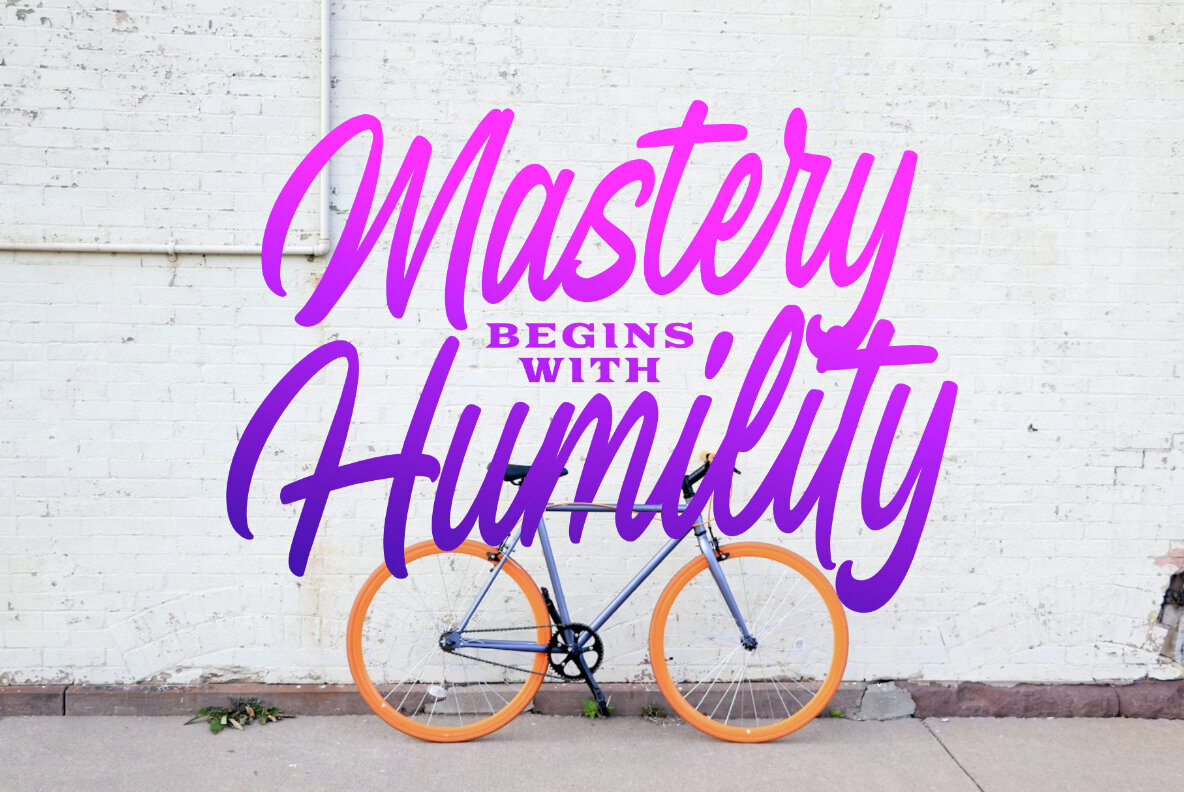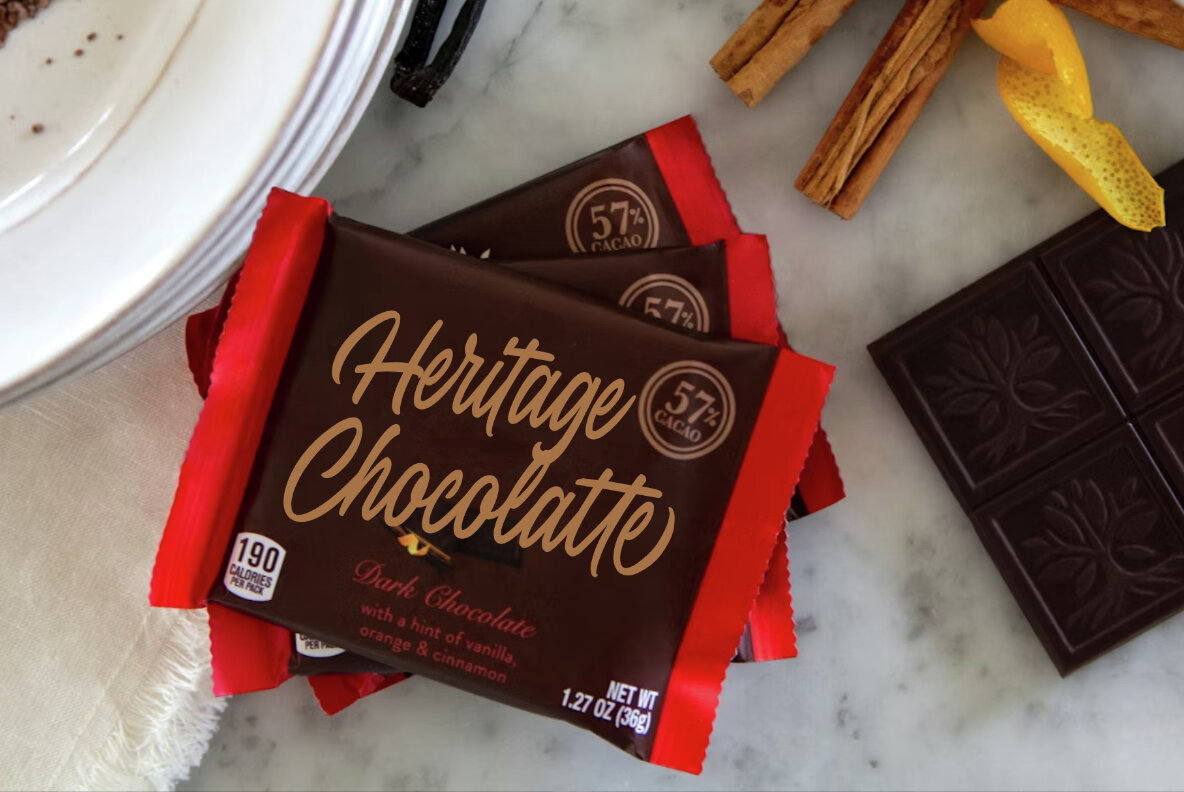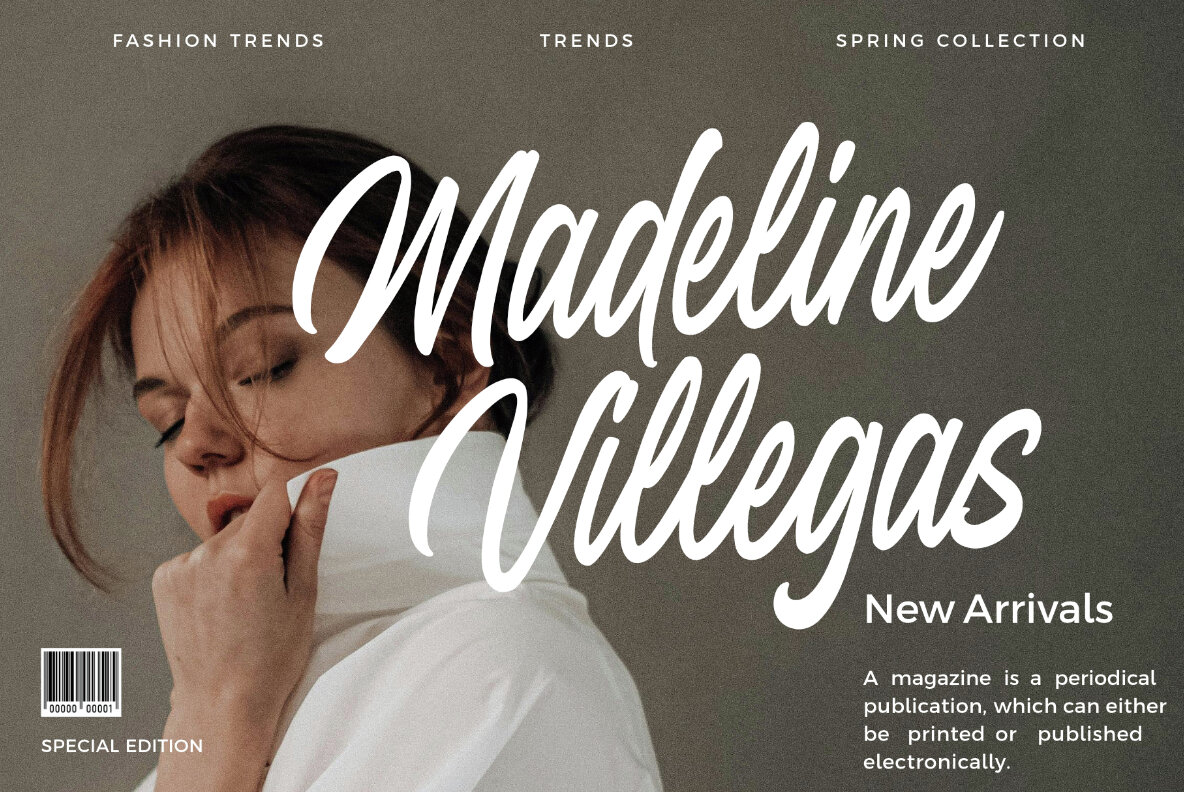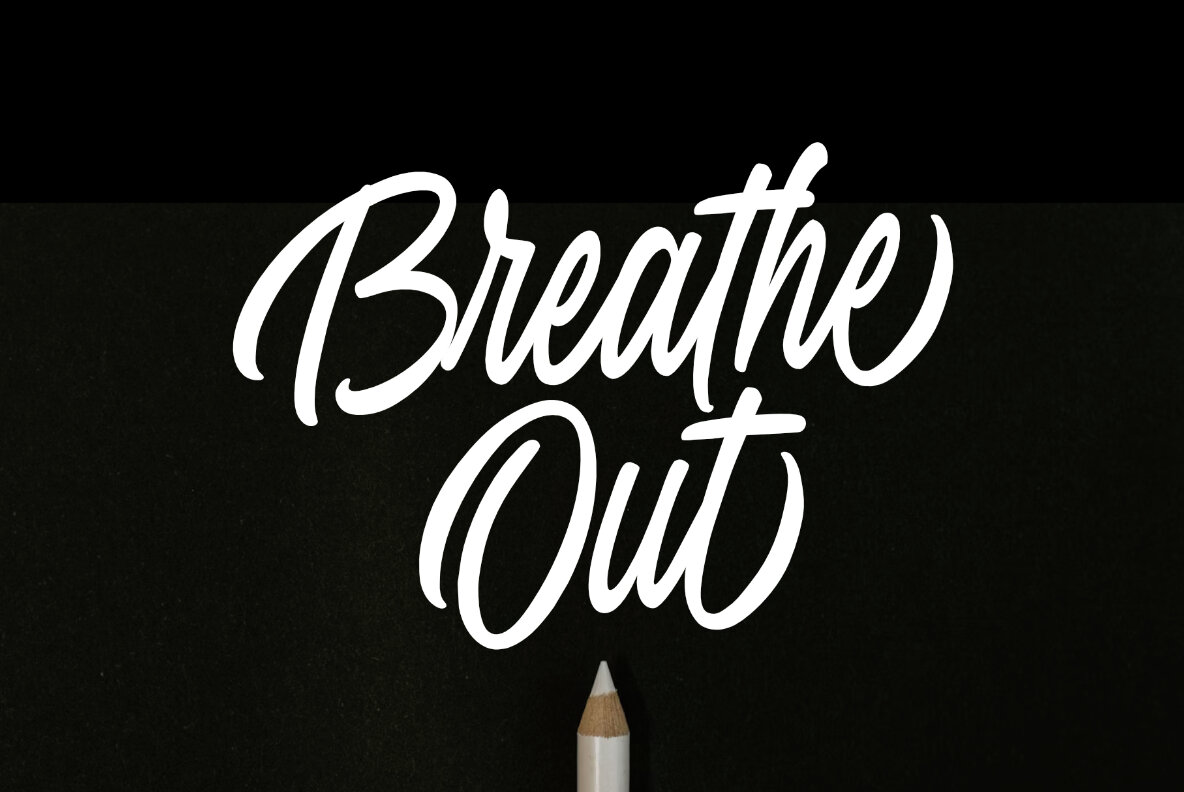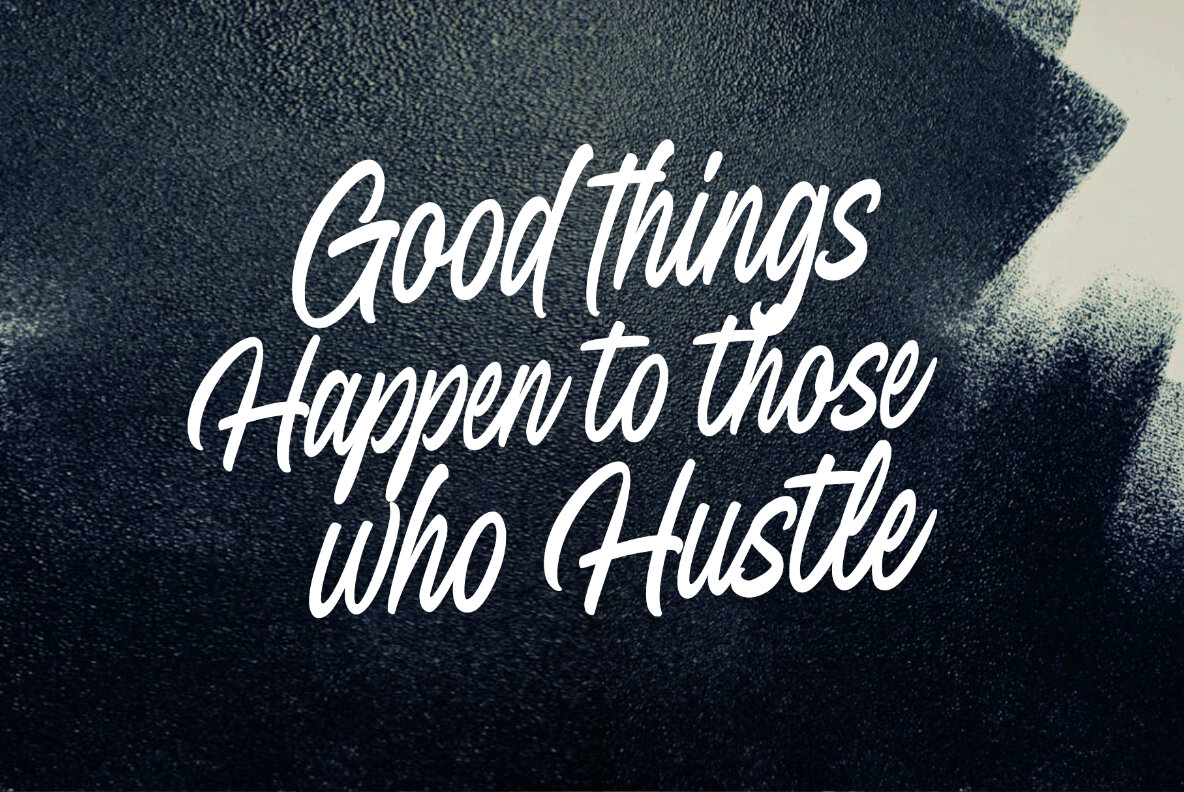
Coastal Midnight Font
Coastal Midnight Regular
Coastal Midnight is a captivating brush script font that exudes a blend of relaxed elegance and coastal charm. With its flowing, hand-painted strokes and organic letterforms, this font brings a sense of breezy sophistication to your designs. Inspired by serene beachside nights and the beauty of nature, Coastal Midnight is perfect for projects that aim to evoke a tranquil and inviting atmosphere.